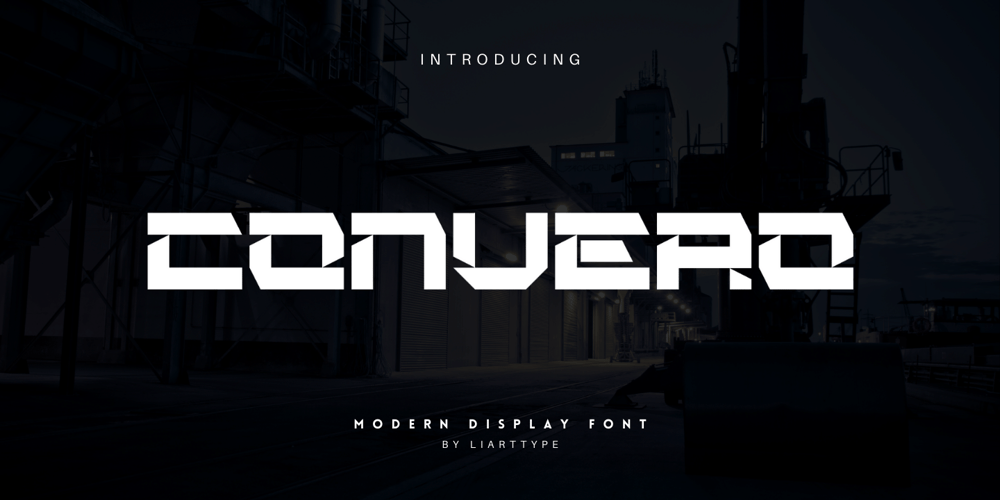
Convero
Convero font
Convero Font Family was designed by Ali Sifak Muftari and published by Liartgraphic. Convero contains 1 styles and family package options. How are you guys doing ? i’m sure that’s nice!Meet our newest product, we call this product Convero font.Convero font are cute typeface fontWhit a uniqe touch and assertiveConvero font is very nice to use on:fashion magazine, logos, ,and photography, landing page, fliyer,What’s includes- multilingual support- alternate- ligature